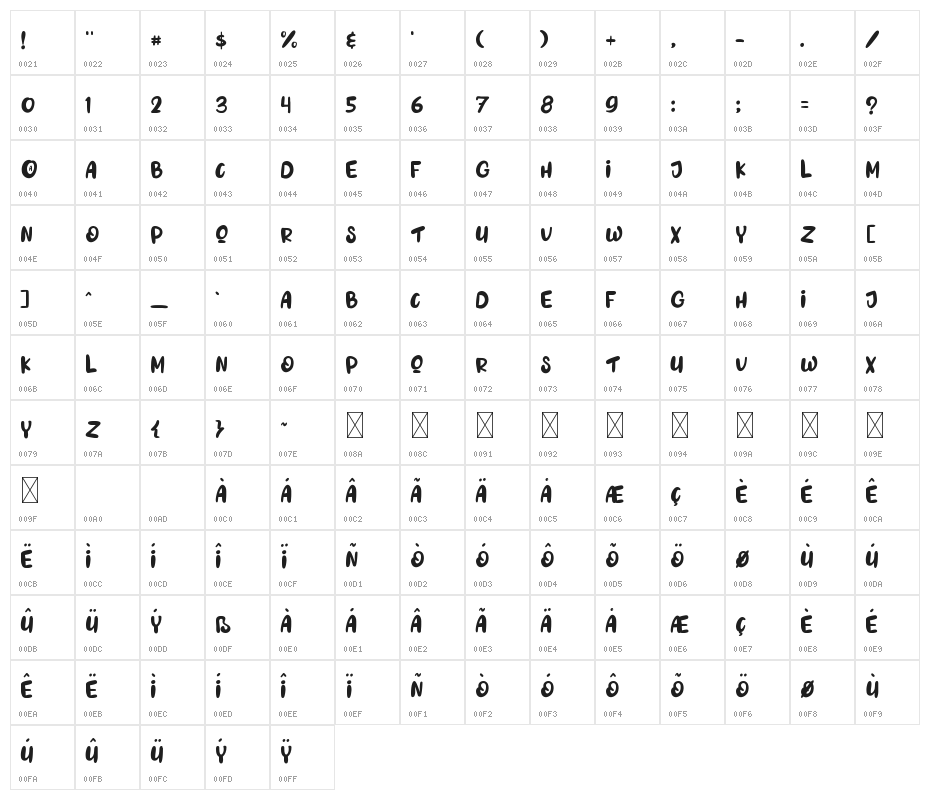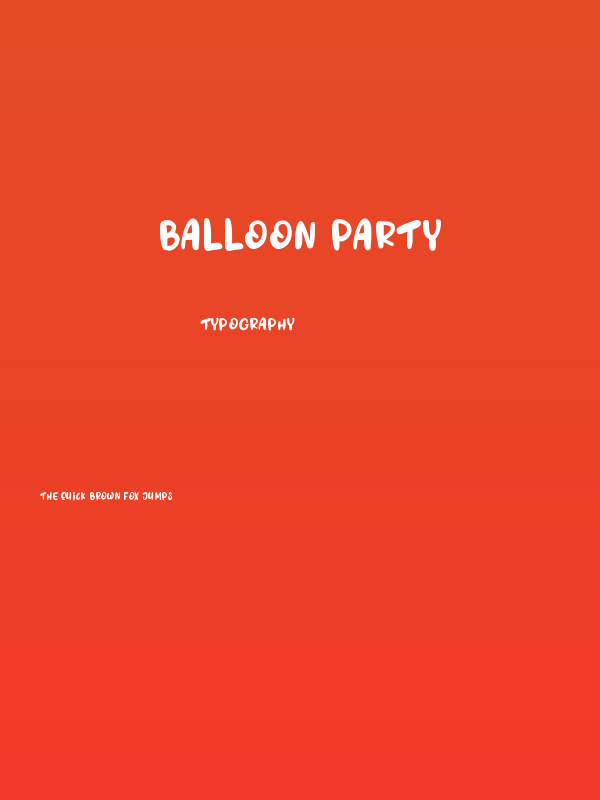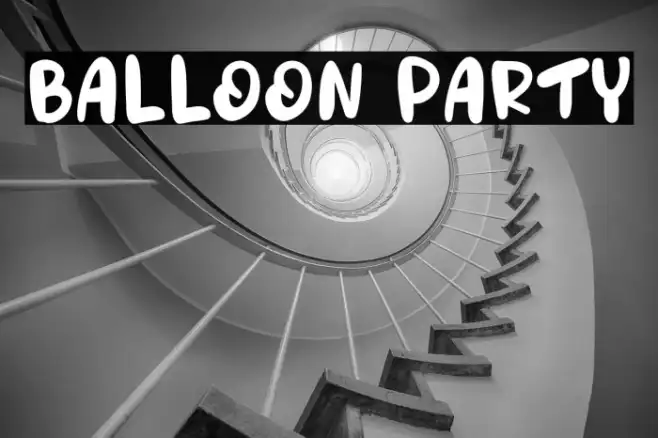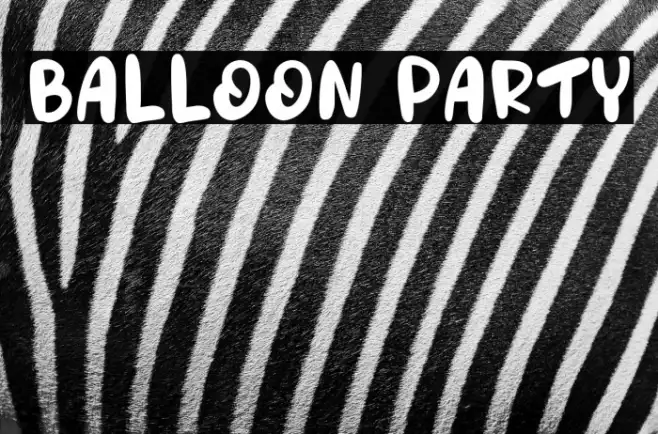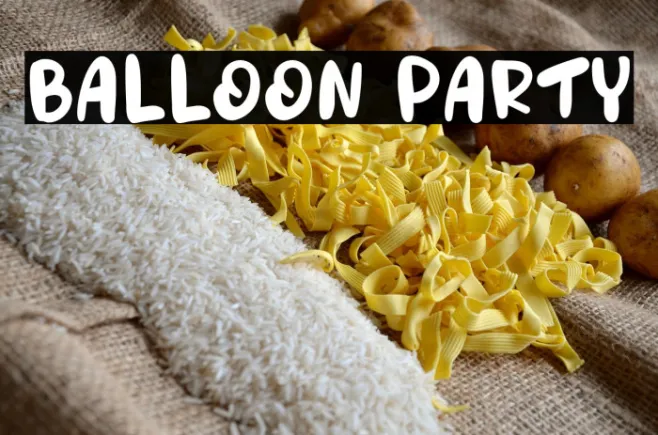
Balloon Party Font
Balloon Party Description
This playful and whimsical font features rounded, balloon-like characters that convey a sense of fun and lightheartedness. The letters are bold and slightly irregular, giving them a hand-drawn appearance. The uppercase and lowercase letters maintain a consistent style, with smooth curves and a bubbly aesthetic. The numbers and special characters follow the same playful design, making the font versatile for various creative projects. Its unique style makes it stand out, perfect for capturing attention in informal settings.
| Proposed Projects | Ideal for children's books, party invitations, playful branding, and creative posters. |